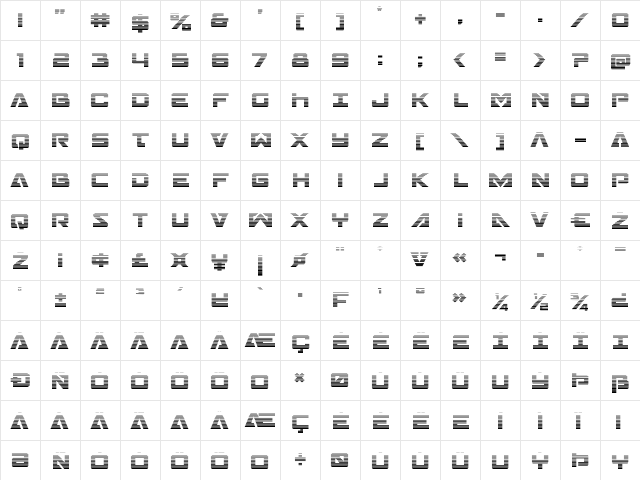
Trans-America Gradient Regular
Design Context for Trans-America Gradient Typeface
Trans-America Gradient is a composed and adaptable typeface that performs quietly and consistently across a wide range of design contexts.